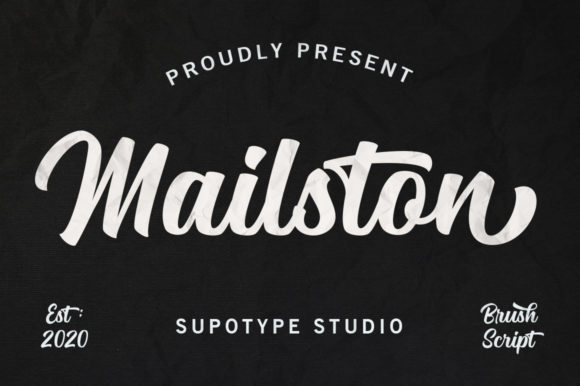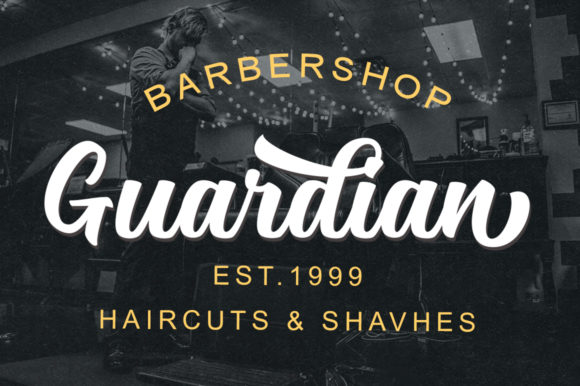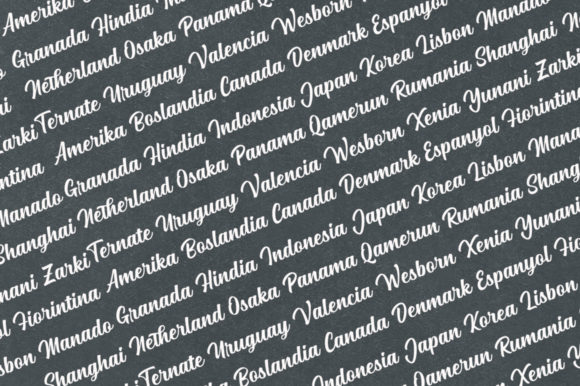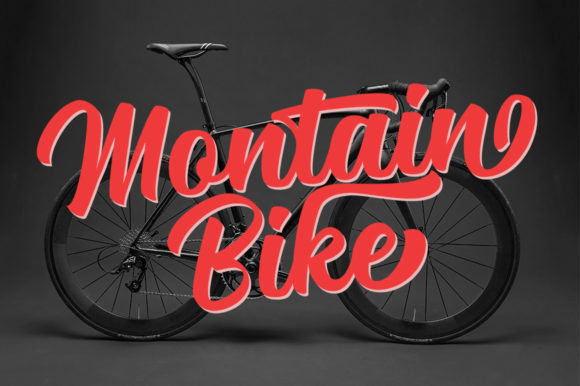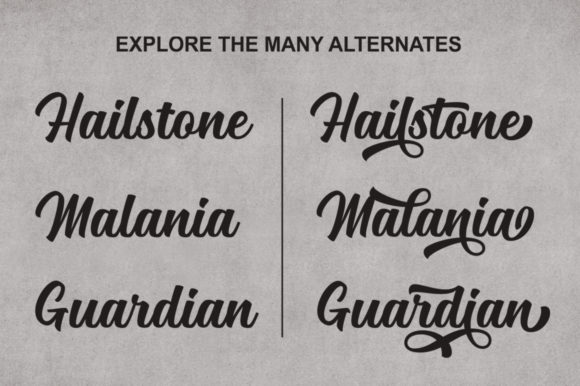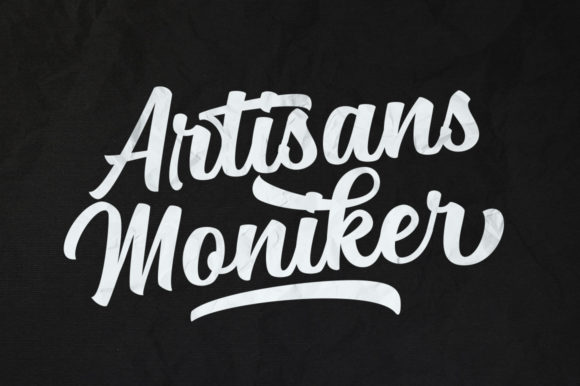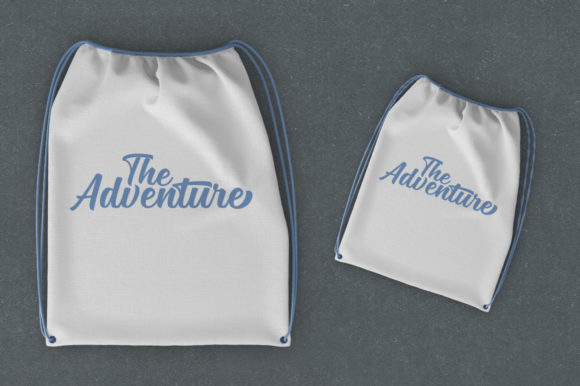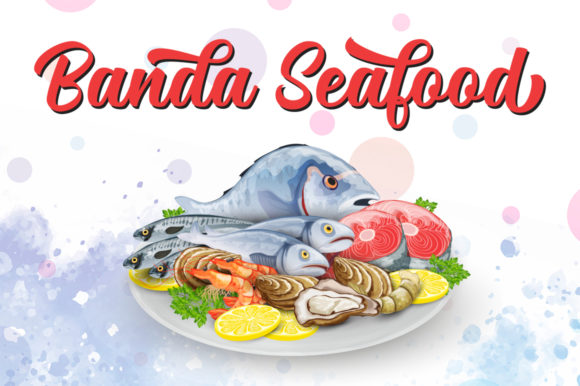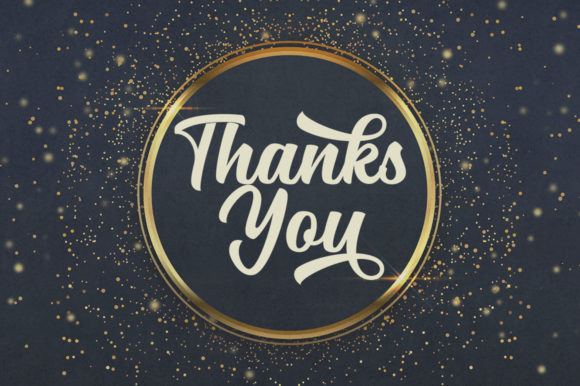
Mailston Script Font
About Mailston Script Font
Mailston Script is a vintage-themed display font with a cute feel. Use it to add a nostalgic vibe to any design project!